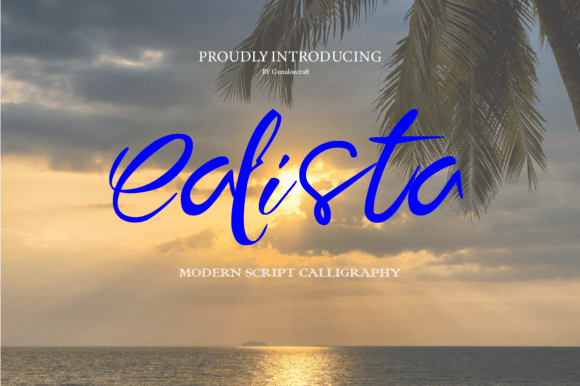
Introducing Calista Font - a captivating handwritten font that will add an exquisite touch to your creative endeavors. Its elegant curves and delicate strokes are designed to evoke a sense of timeless beauty, making it the perfect choice for adding a personal touch to your projects.
With Calista Font, you can effortlessly craft stunning designs that exude sophistication and charm. Its flowing script style adds a touch of whimsy and elegance, making it ideal for birthday invitations, wedding stationery, branding, and social media graphics. The font's versatility extends to crafting heartfelt letters, heartfelt quotes, and personalized gifts that will leave a lasting impression on your loved ones.
Immerse yourself in the world of Calista Font, where creativity knows no bounds. Its intricate details and graceful letterforms will elevate your designs to new heights. Unleash your imagination and create designs that resonate with your audience, leaving them spellbound by the beauty and charm of Calista Font.